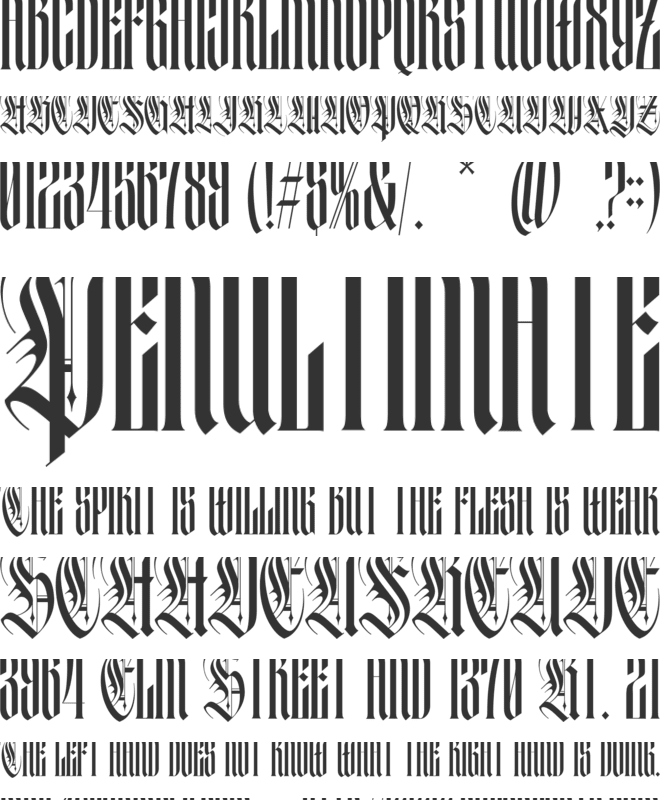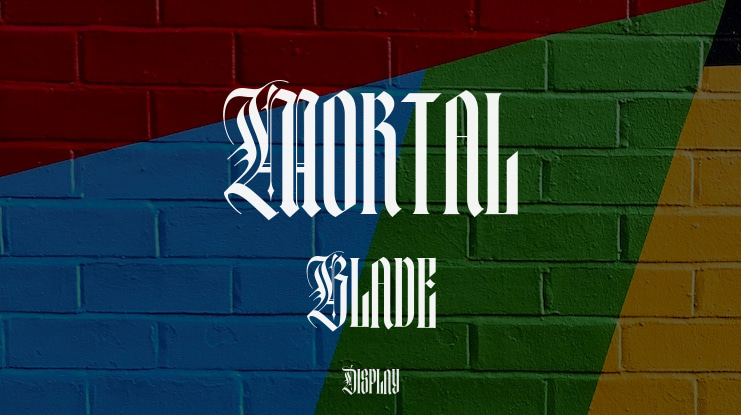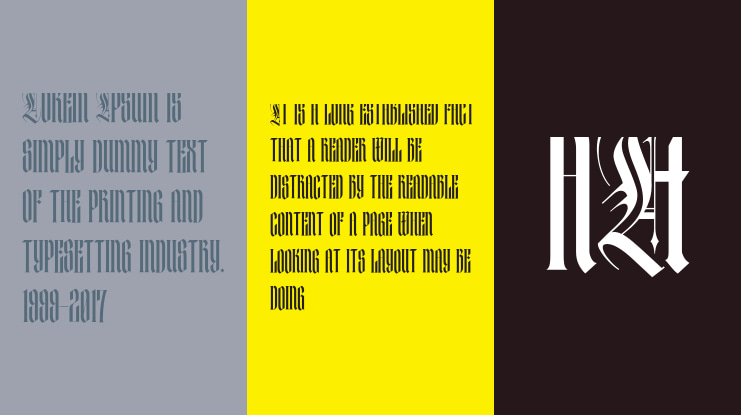
Mortal Blade – Epic Gothic Typeface
Unleash the dark elegance and raw power of Mortal Blade, a striking gothic blackletter typeface designed for projects that demand attention. Forged with the intricate details of medieval aesthetics, dark fantasy, and vintage engraving, Mortal Blade strikes the perfect balance between classic craftsmanship and contemporary graphic design.
What makes Mortal Blade truly exceptional is its breathtaking versatility. With a massive library of 857 glyphs, this typeface offers an endless realm of creative possibilities. Explore a rich collection of custom alternates, including majestic dragon-wing motifs and sharp, sword-inspired crossbars. Whether you are designing a heavy metal album cover, an epic gaming logo, or a sophisticated streetwear apparel brand, Mortal Blade gives your typography a commanding, fierce, and luxurious presence.